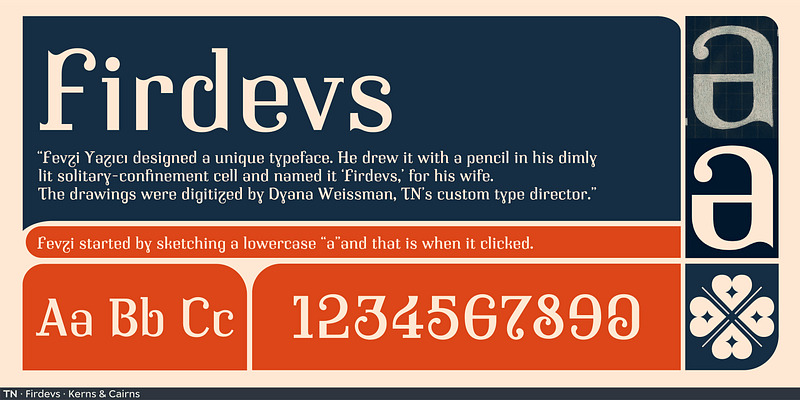
Designed in captivity, Firdevs stands alone: Fevzi wrote, “I can easily claim that I have not been affected, more broadly even not inspired, from any font while I was designing Firdevs.” It functions extremely well as a display face yet maintains readability at smaller sizes. All proceeds go to the Yazıcı family and RSF. Students can contact us for a 50% discount.
About the making of Firdevs
For over 15 years, Dyana Weissman has been working with clients across various industries such as Comedy Central, Disney, Ford, the MoMA, and The Washington Post. Currently, she is the Custom Type Director at Type Network, where she manages and creates large families in traditional static and variable font formats. Previously, she was Senior Custom Designer at The Font Bureau. Her approach to work is influenced by humanity itself: She aims to make genuine connections with clients, and believes that the most memorable designs are endearingly imperfect. She stretches her other creative muscles by writing for Typographica and Alphabettes, taking photographs, and promoting independent film. Kerns & Cairns founder Dyana Weissman helps clients find their way to the logical, beautiful conclusion of whatever their creative challenge is.